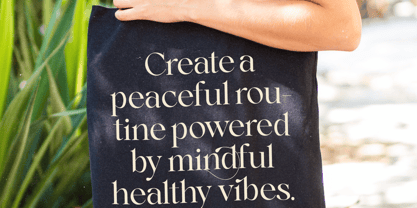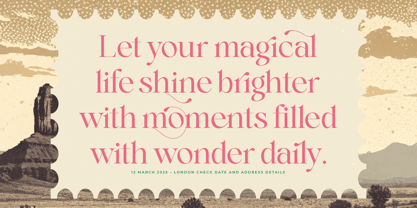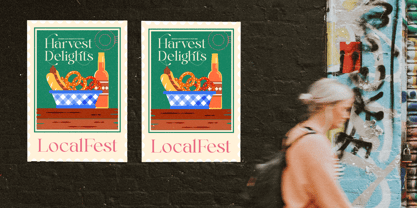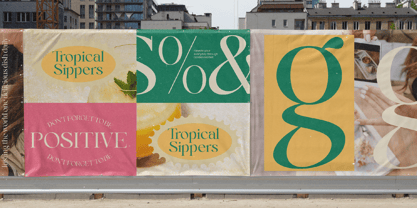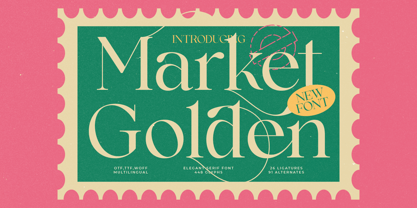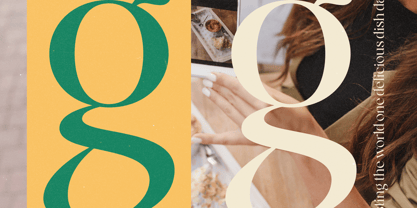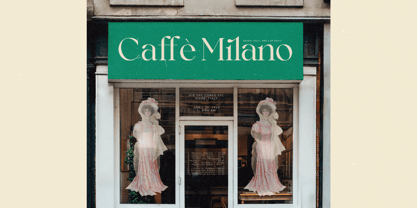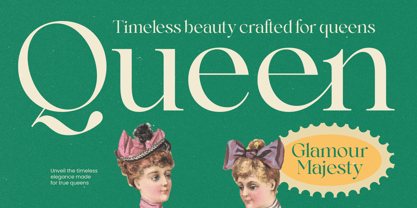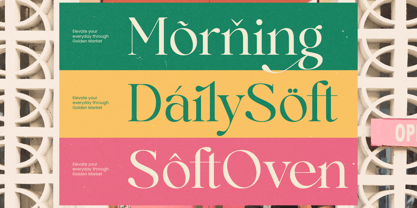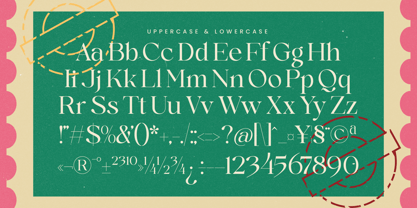
Market Golden
by Timelesstype Studio
The Market Golden Font Family was designed by Heru Utama Putra and published by Timelesstype Studio. Market Golden contains 2 styles and family package options. More about this family
Market Golden is an elegant serif display font crafted with refined curves, stylish contrast, and a graceful modern-classic structure. Its luxurious details and flowing ornamental strokes make it perfect for high-end branding, editorial layouts, boutique packaging, invitations, logos, and artistic visual identities. The font carries a sophisticated charm that blends contemporary elegance with timeless serif beauty—ideal for designers who want a premium, expressive, and polished aesthetic.